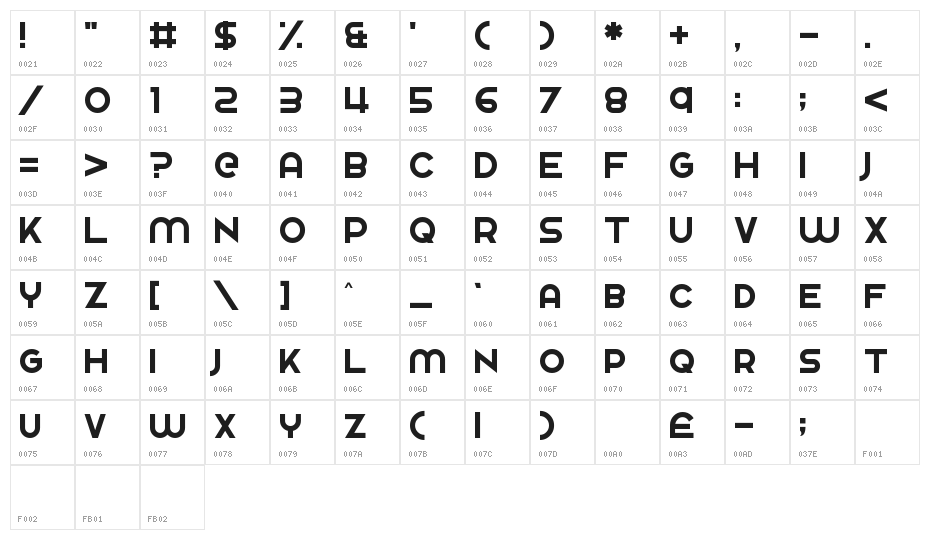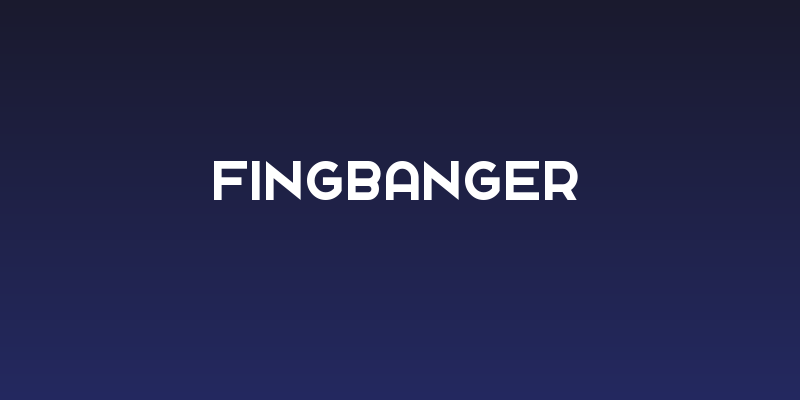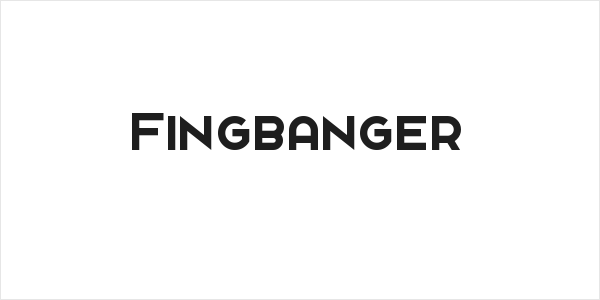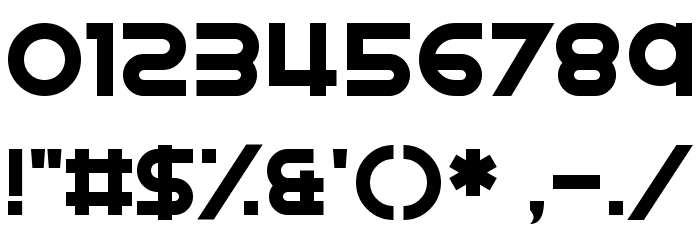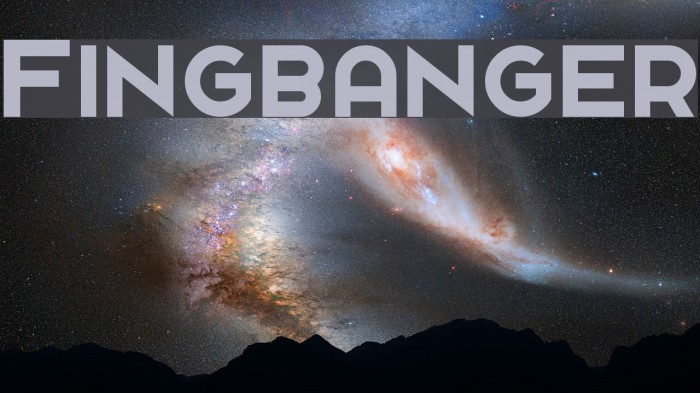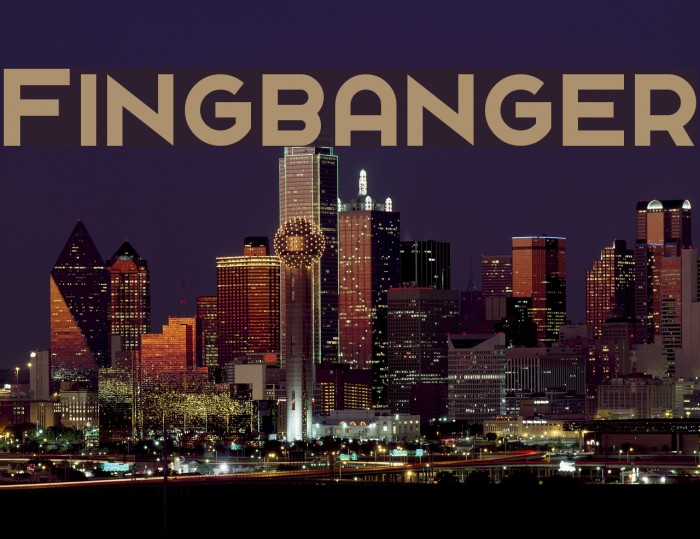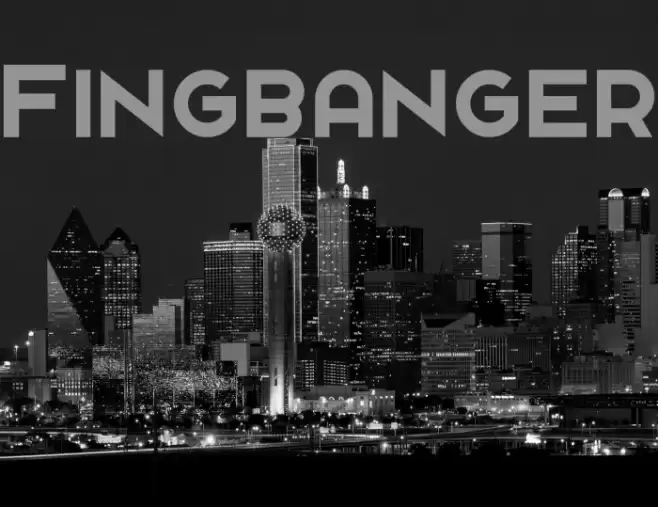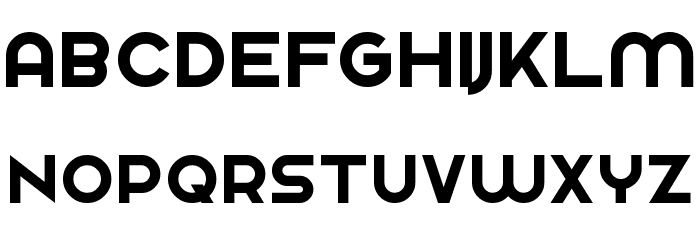
Fingbanger Font
Fingbanger Description
This font features a bold and geometric style, characterized by its strong, clean lines and modern aesthetic. The uppercase and lowercase letters are designed with a consistent width, giving a uniform appearance across the board. The numerals and special characters maintain this geometric consistency, making the font versatile for various design applications. The overall look is sleek and contemporary, with a slight futuristic edge. The characters have a balanced proportion, and the spacing is tight, enhancing the compact and cohesive feel of the text. This font is ideal for projects that require a modern and assertive typeface.
| Proposed Projects | Ideal for branding, headlines, posters, and digital media that require a modern and bold statement. |